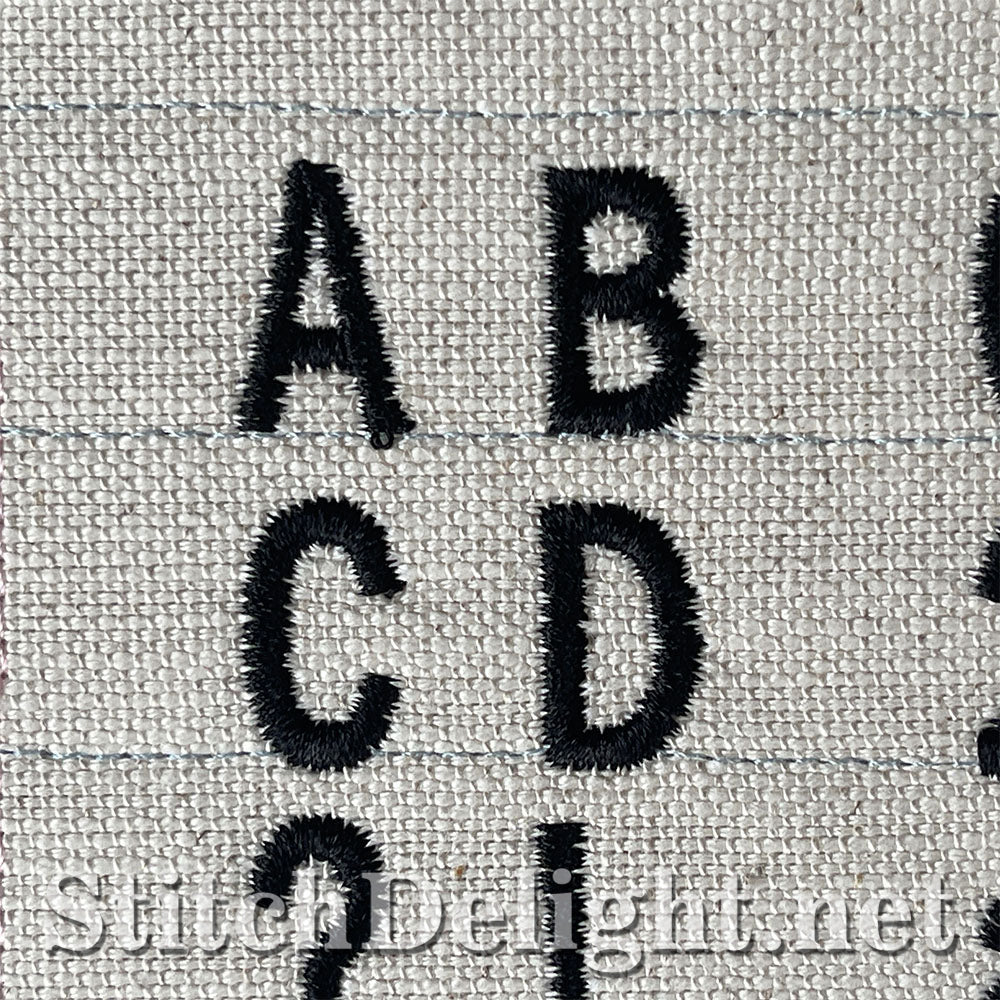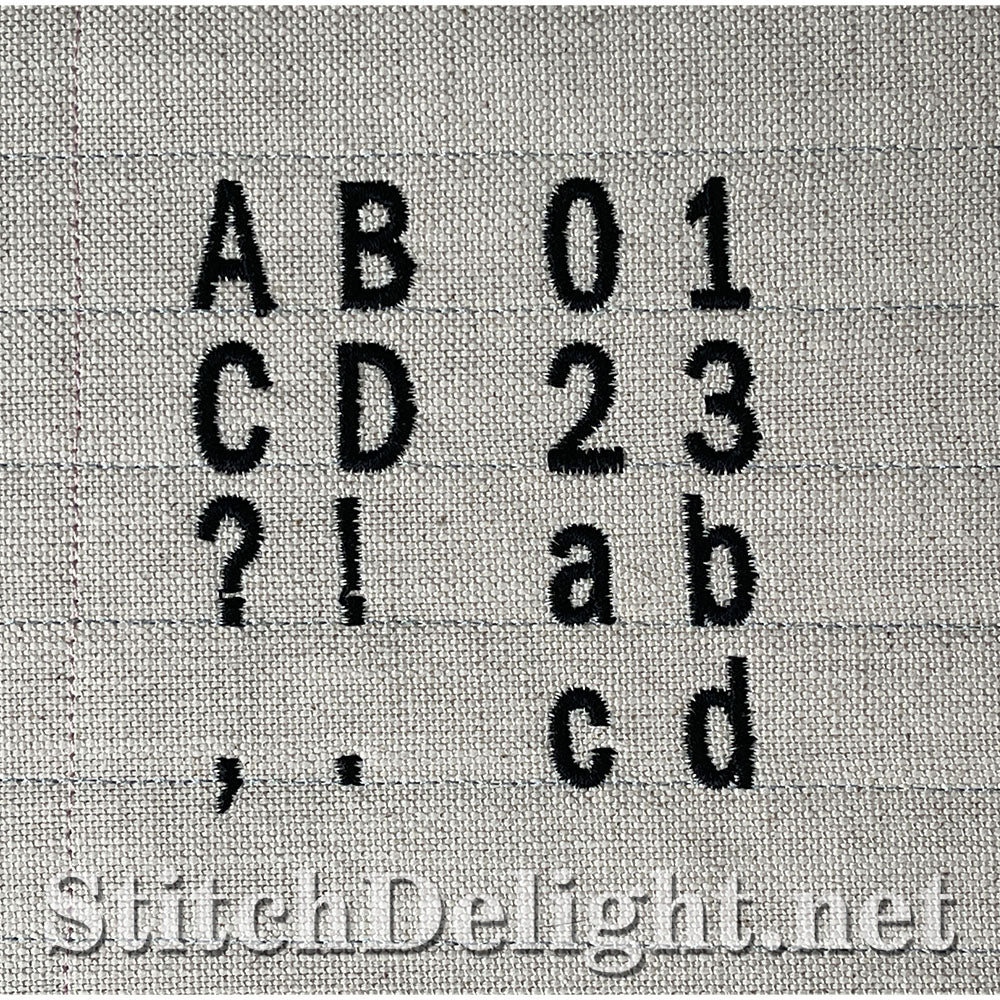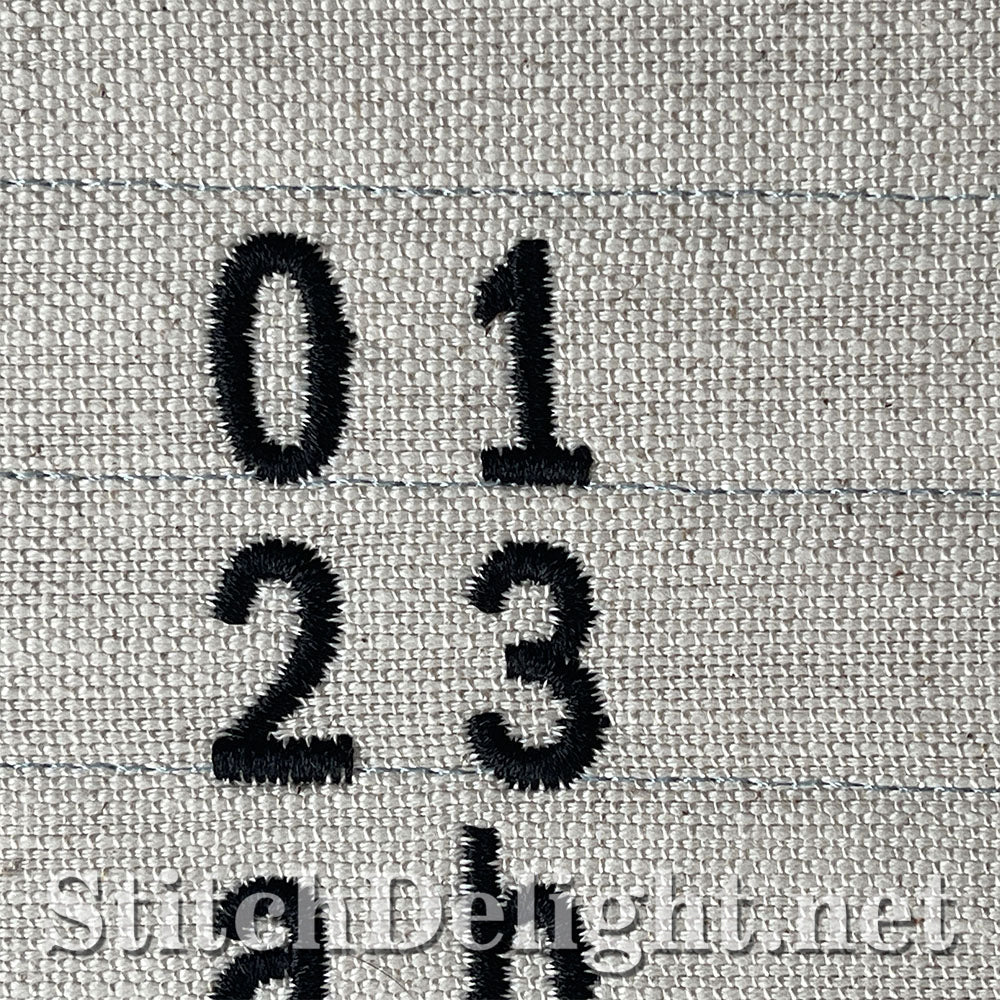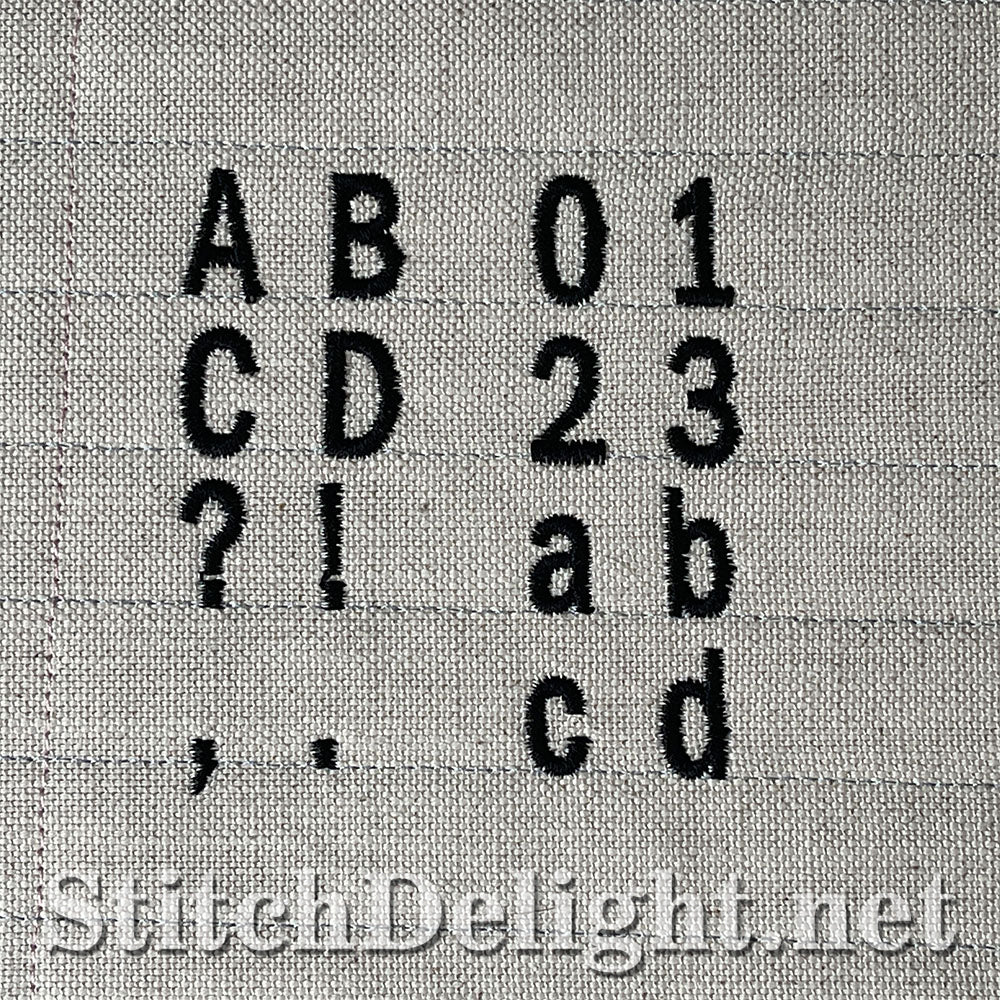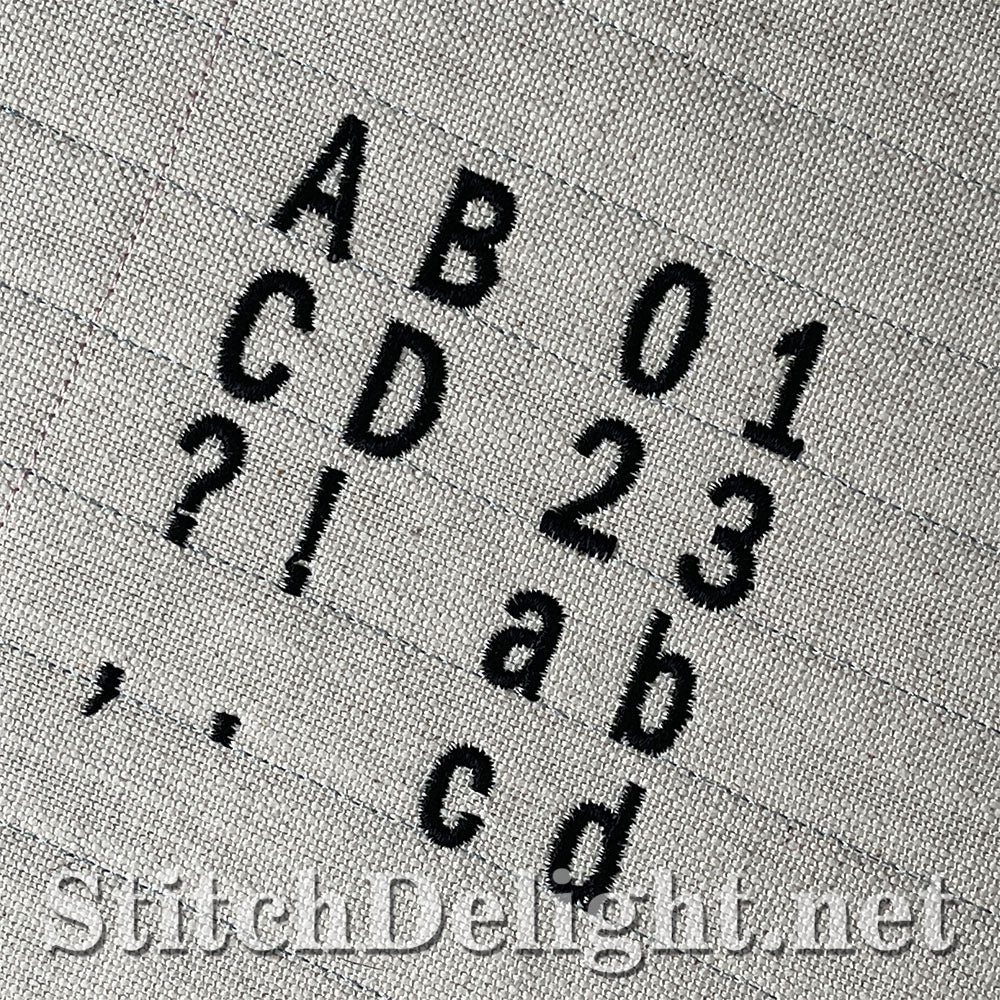
This is the matching font for The Farmers Font SDS3266 and fits in a 4x4" hoop and is suitable for all fabric types using the correct stabilizer, pair this font with the collectors font to bring your festive designs to life.
This font is tiny, coming in at only an average height of 0.8" this font is designed to seamlessly fit into the